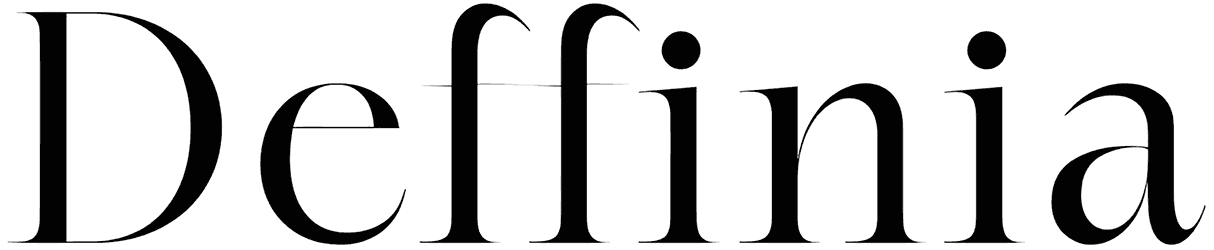
Asterisco Quinatum Font
Asterisco Quinatum font feels like typography with a little celestial ornament tucked into every corner. Its decorative style gives words a curious, artistic personality, perfect when your layout needs something more memorable than clean lettering but not too chaotic. You can see this serif font working beautifully on designs that want a rare, slightly mystical touch.
Use Asterisco Quinatum font for astrology posters, boutique logos, tarot cards, zine covers, handmade labels, book titles, or creative event flyers. Star details, midnight blue, antique cream, gold accents, thin frames, and generous spacing will make its unusual charm feel intentional and polished.
Asterisco Quinatum is a project started around 2010, a very long time ago, in an attempt to create asymmetric letters, for a more dynamic design, a bit more professional, if you will. The effect is finally there, but as always, the designer’s work is never done.
Designed by: Levi Szekeres